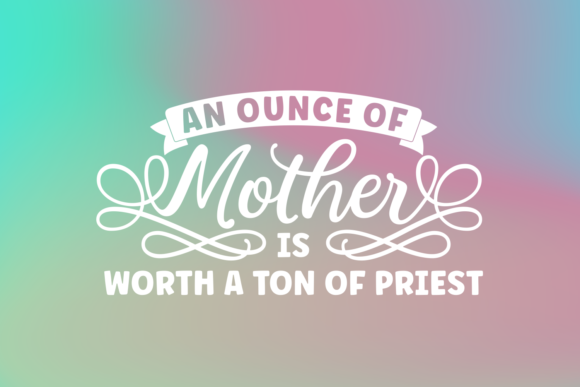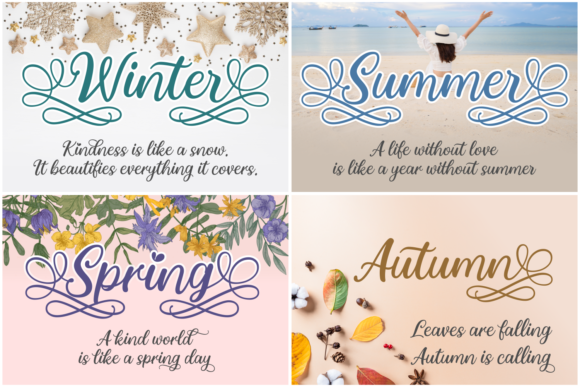
Villie Font
db-ku.com - Script & Handwritten -- Villie is a cursive and graceful script font. Fall for its ravishing style and use it to create gorgeous wedding invitations, beautiful stationary art, eye-catching social media posts, and much more!